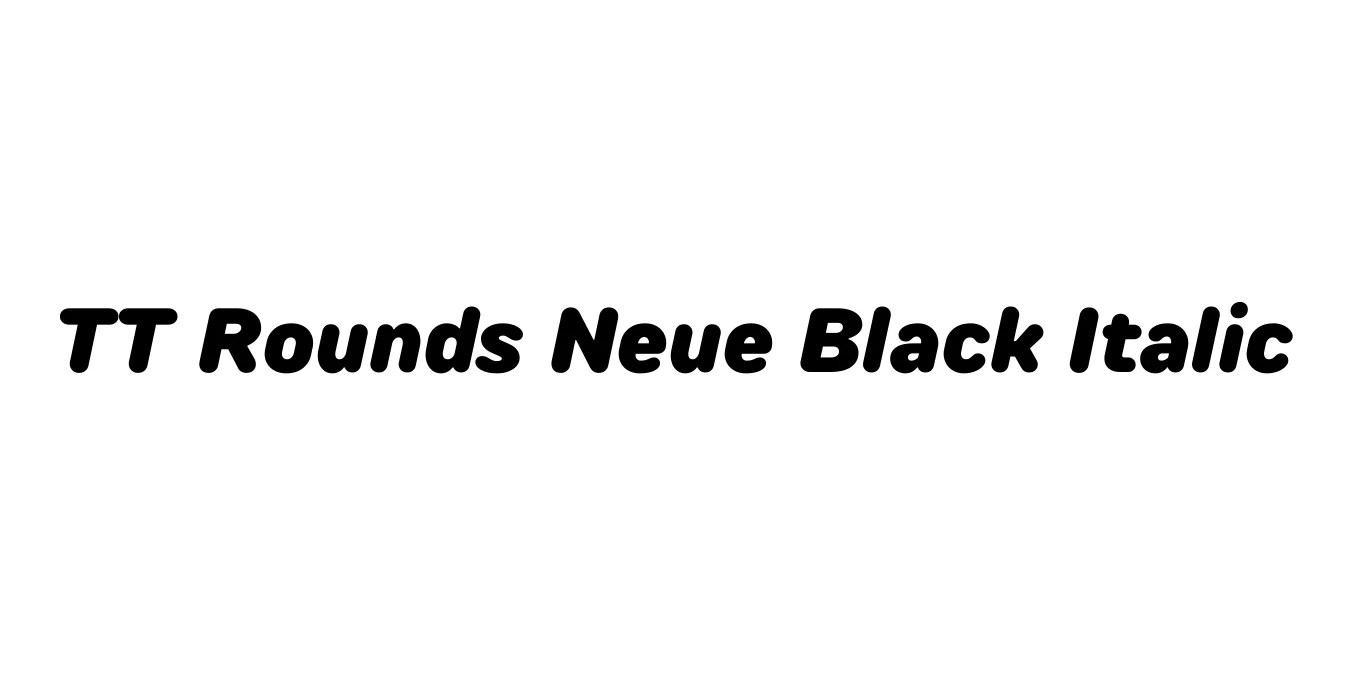
TT Rounds Neue Black Italic
Designed by TypeType Team
| Category | Rounded Sans-Serif |
| Designer | TypeType Team |
TT Rounds Neue Black Italic is a comprehensive redesign of the original TT Rounds family, offering a contemporary take on the rounded geometric sans-serif genre. The Black Italic weight is the most impactful in the series, combining extreme visual weight with a dynamic slant that evokes energy and forward motion while maintaining the soft, friendly terminals that define the typeface.
Developed by the TypeType foundry, this font is engineered for high-end digital environments and print media alike. It features a large character set and advanced OpenType features, making it a robust tool for designers who need a typeface that balances technical precision with a warm, approachable personality. Its geometric foundation ensures legibility even at its heaviest weight.
TT Rounds Neue Black Italic Best Uses
Perfect for creating approachable and memorable brand identities.
Excellent for high-impact headlines and promotional marketing materials.
Adds a bold, energetic, and modern feel to website hero sections.
The soft edges make it ideal for food, beverage, or lifestyle product design.